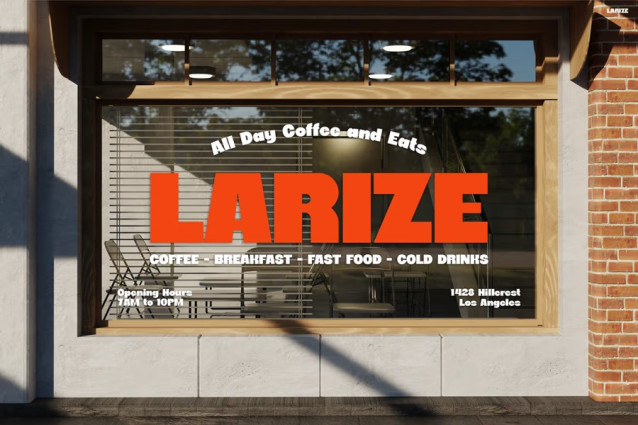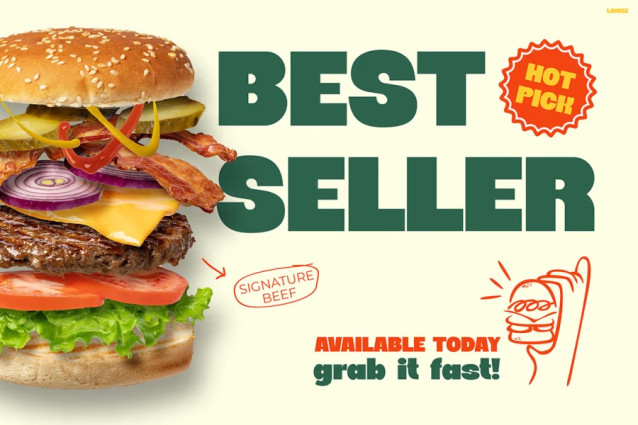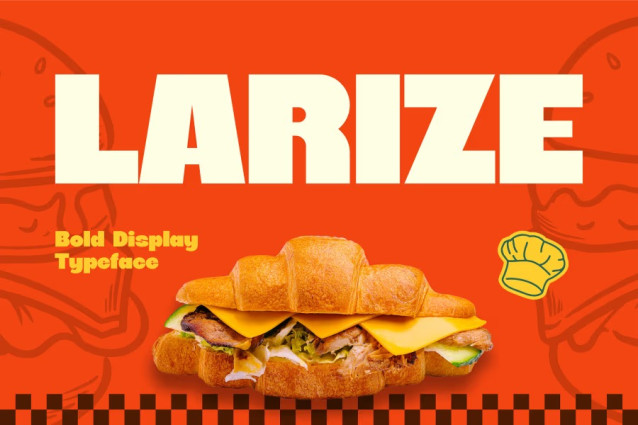
Larize Font
Larize Font introduces a bold and refined display style that instantly draws attention, and it does so with impressive charm. Moreover, its clean curves and strong shapes create a visual rhythm that feels fresh, confident, and highly memorable. Because of this, the font becomes an ideal choice for creators who want striking aesthetics without losing readability. Additionally, every letter feels carefully crafted, ensuring that the design looks professional and modern across all platforms. As a result, your menus, ads, packaging, and storefront displays gain a vibrant personality that stands out.
Instagram Font LARIZE also delivers remarkable versatility. Furthermore, its balanced proportions and smooth outlines make it suitable for both digital and printed media. Even so, the font maintains a warm and friendly character, which helps food brands appear more inviting and delicious. In addition, its bold display style strengthens brand identity, making products look premium, trendy, and easy to recognize. Consequently, designs become more engaging, especially when promoting burgers, burritos, hot dogs, coffee, or bakery items.
Instagram Font LARIZE shines not only in aesthetics but also in functional clarity. Therefore, your text remains readable even from a distance, which is essential for menus, banners, and promotional boards. Moreover, the font’s consistent weight makes every layout look stable and well-structured. Similarly, the playful yet strong energy enhances the overall visual storytelling, giving food and beverage brands a vibrant momentum. Because of all these features, the font becomes a reliable tool for designers who want beauty and impact in one package.